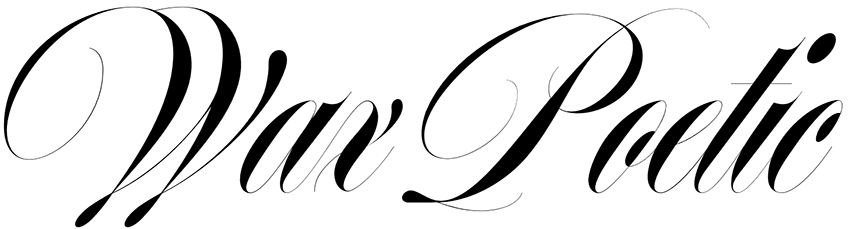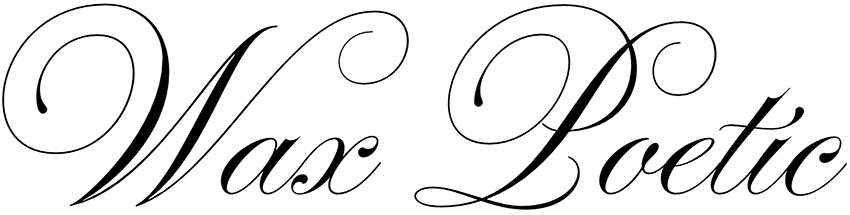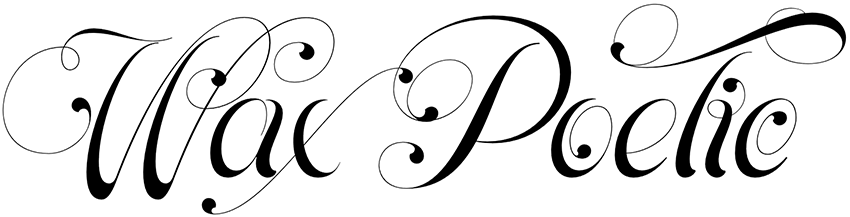
Ed Benguiat had once said, “I do not think of type as something that should be readable. It should be beautiful.” And in 2013, the type choices were gorgeous. It was a scriptaculous year with the interest in script type, hand lettering and calligraphy was at an all time high. Perhaps it was a bit of penmanship nostalgia due to our increasingly digital lifestyles or the fact that cursive handwriting is starting to disappear from public classrooms. Whatever it might be, we're glad that people love them.
Here's some of our favorite script typefaces that are elegant, have personality, and don't look like standard wedding invitation faces.
Parfumerie-Script-Pro
Parfumerie Script Pro by Sabrina Mariela Lopez at Typesenses
Bird Script
Bird Script by Maximiliano Sproviero at Lián Types
Parfait Script
Parfait Script by Maximiliano Sproviero at Lián Types
Burgues
Burgues Script by Ale Paul at Sudtipos
Filmotype LaCrosse
Filmotype LaCrosse by Filmotype
Rolling Pen
Rolling Pen by Ale Paul at Sudtipos
Delicious Pro
Delicious Pro by Yes Please
Erotica
Erotica by Maximiliano Sproviero at Lián Types
Brand
Brand by Maximiliano Sproviero at Lián Types
Lust Script
Lust Script by Neil Summerour at Positype